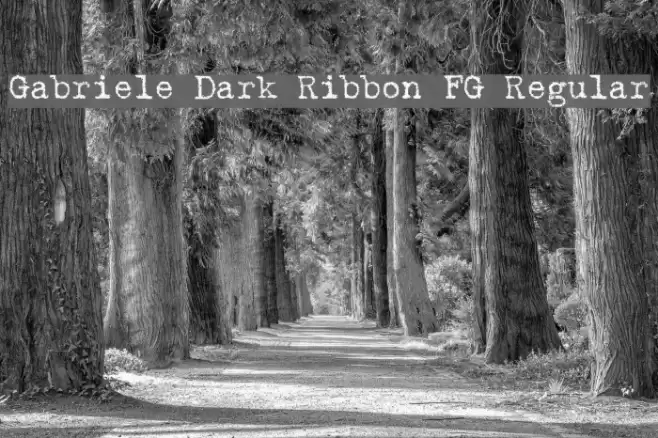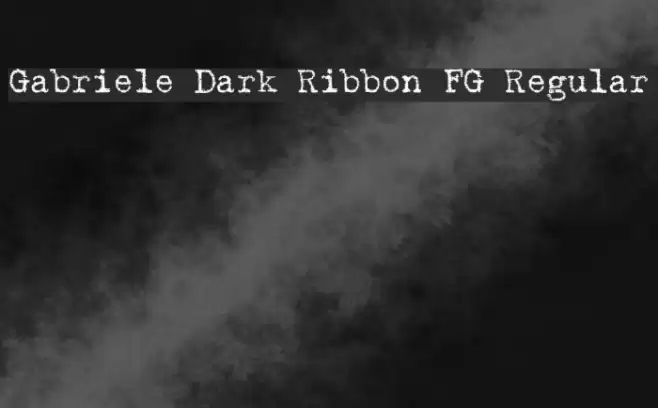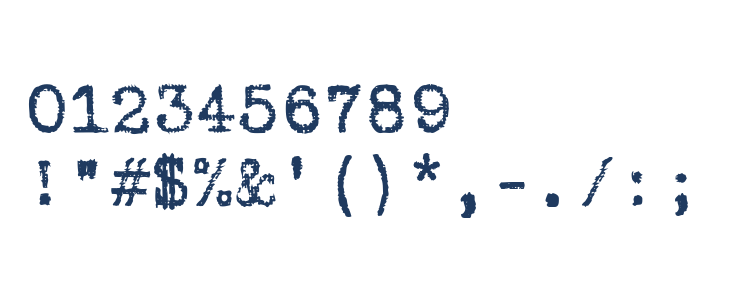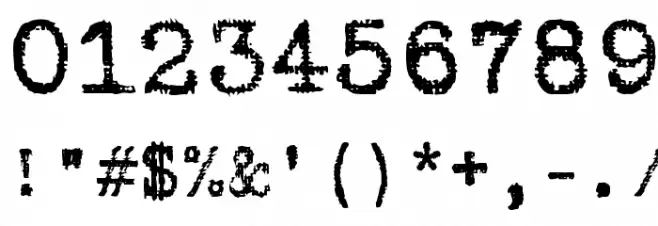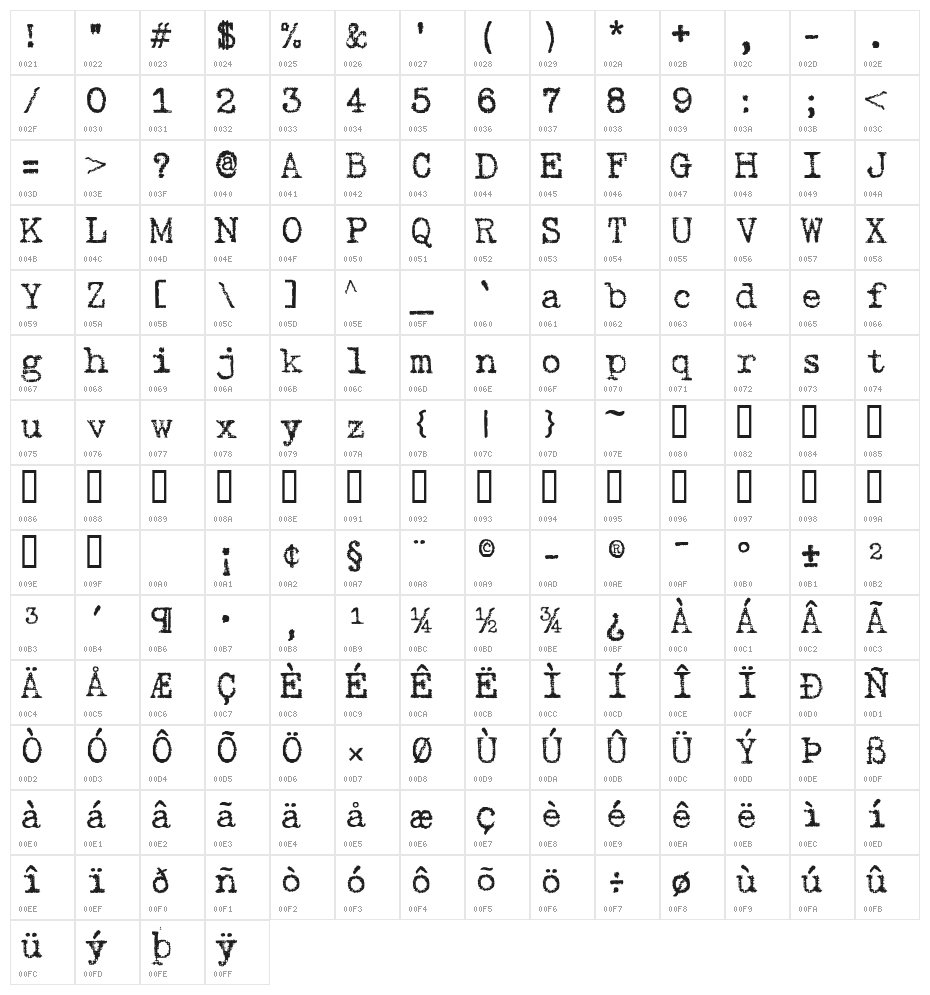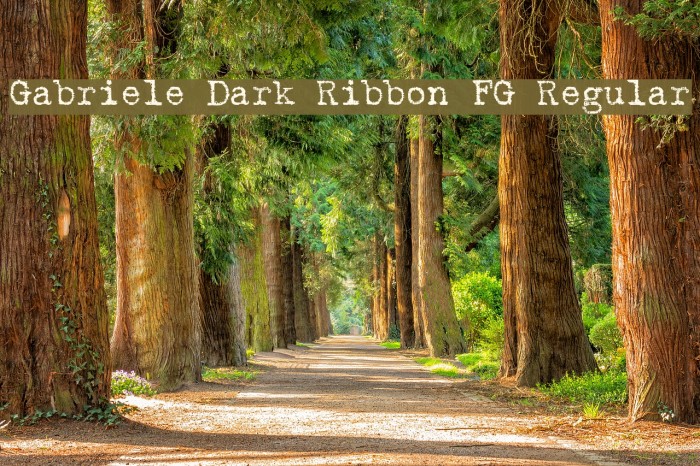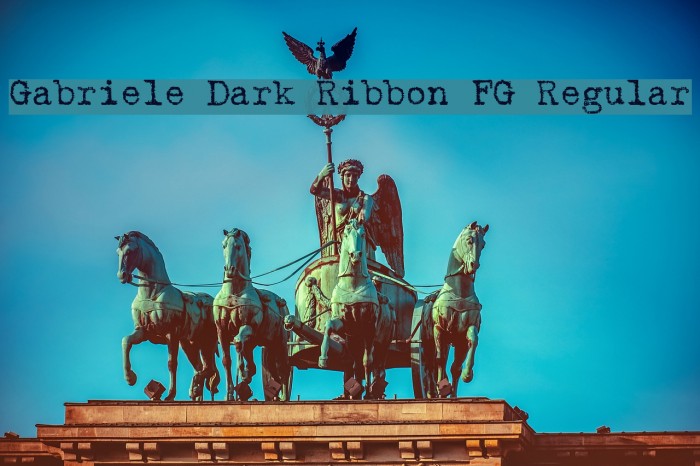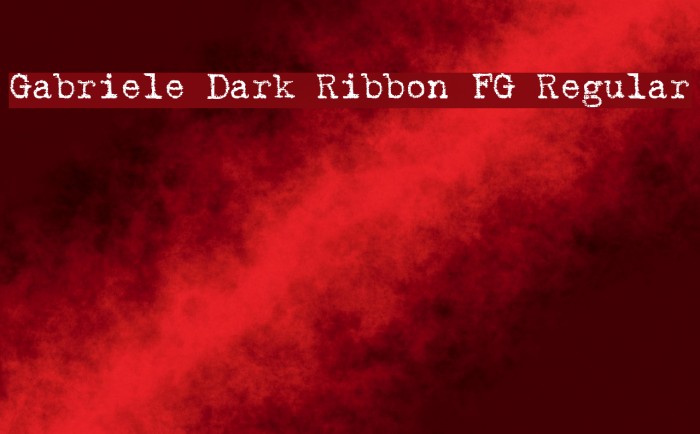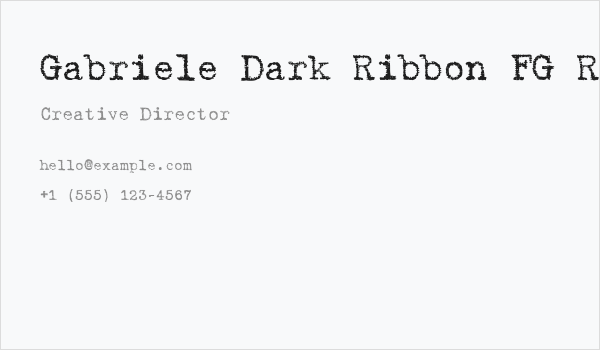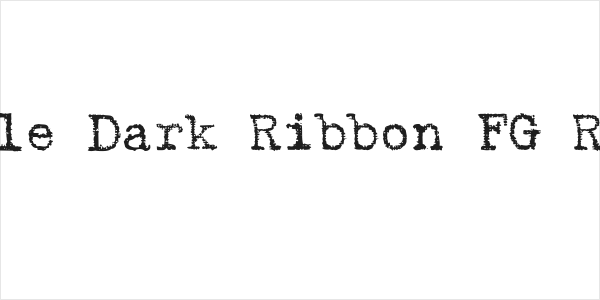
Gabriele Dark Ribbon FG Regular Font
Gabriele Dark Ribbon FG Regular Description
This font features a distressed, textured appearance that gives it a vintage and rugged feel. The characters are bold and have a rough, uneven edge, reminiscent of old typewriter or stamped text. The uppercase and lowercase letters maintain a consistent style, with each character exhibiting a unique pattern of wear and tear. Numbers and special characters follow the same design, ensuring a cohesive look across all text. The font's distinctive style makes it ideal for projects that require a touch of nostalgia or a handcrafted aesthetic.
A bold, distressed font with a vintage, textured appearance from Uncategorized fonts.
- Proposed Projects: Ideal for vintage-themed posters, album covers, branding for artisanal products, and any design needing a rustic or retro touch.
- Overall Style: Vintage